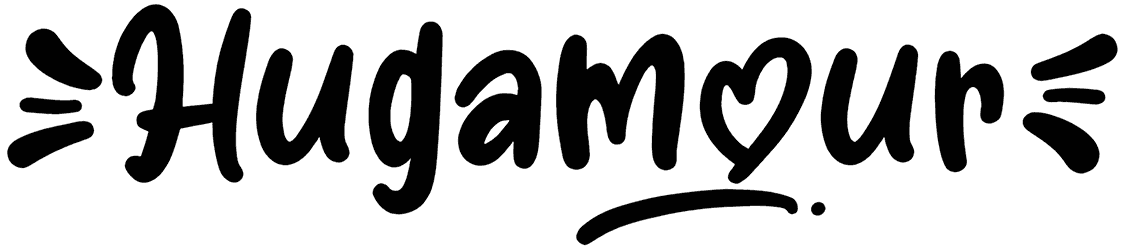
Hugamour Font
Introducing Hugamour, an adorable handwritten font with a bold, smooth appearance. This love font features a friendly, youthful touch and fits very well in a wide range of applications such as birthday cards, branding projects, shopping bags, apparel prints, and romantic events. Use it to create your lovely design and make it stand out from the rest.